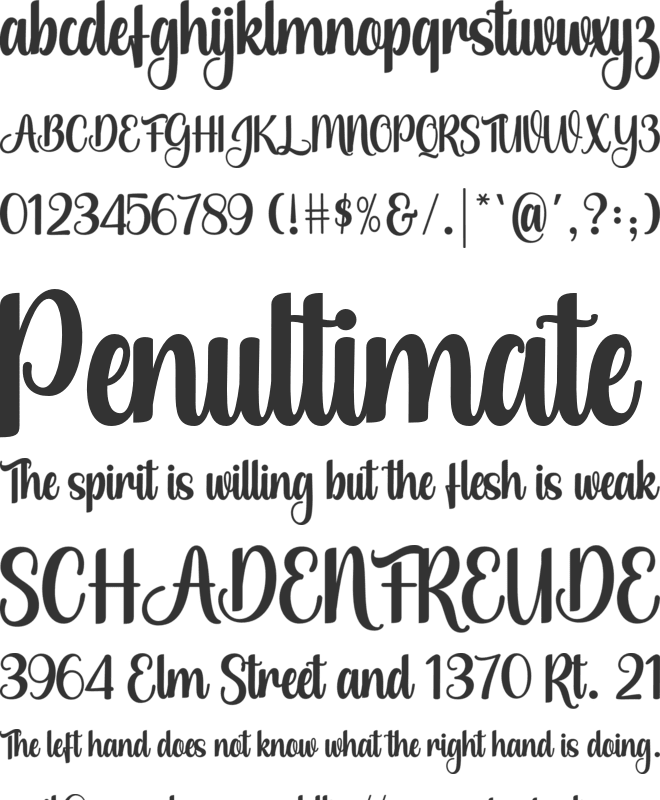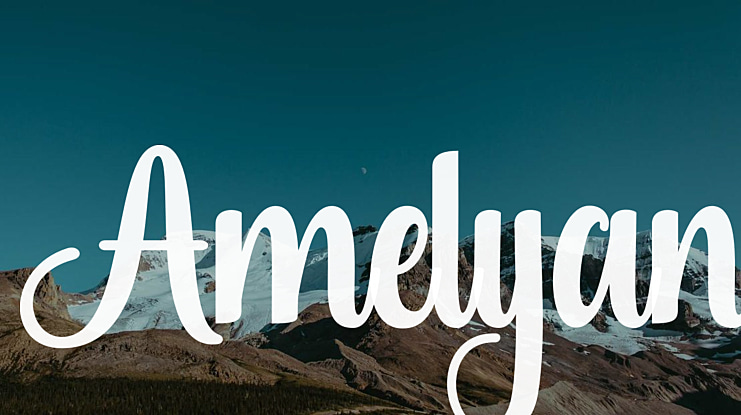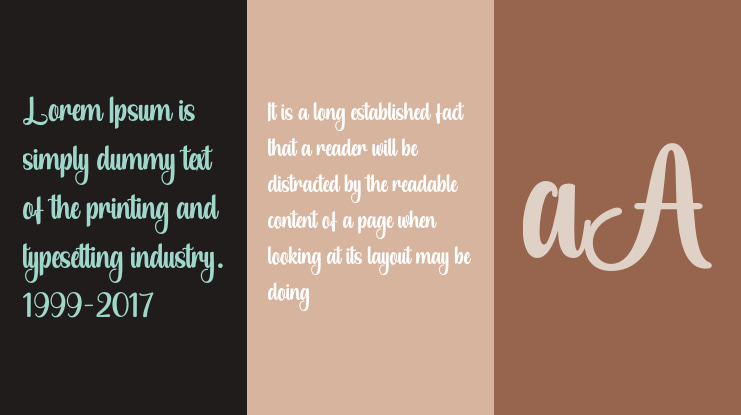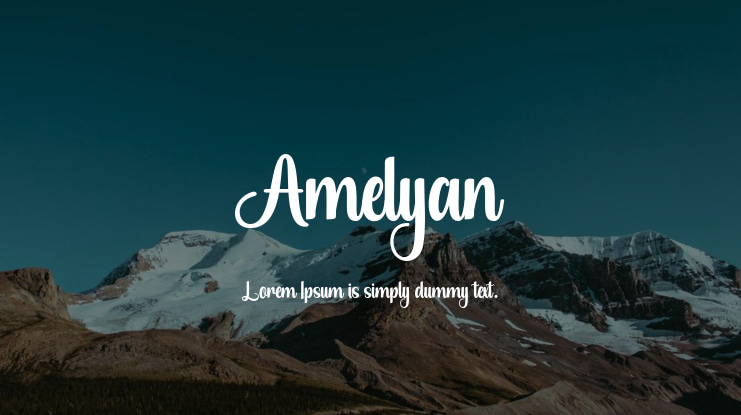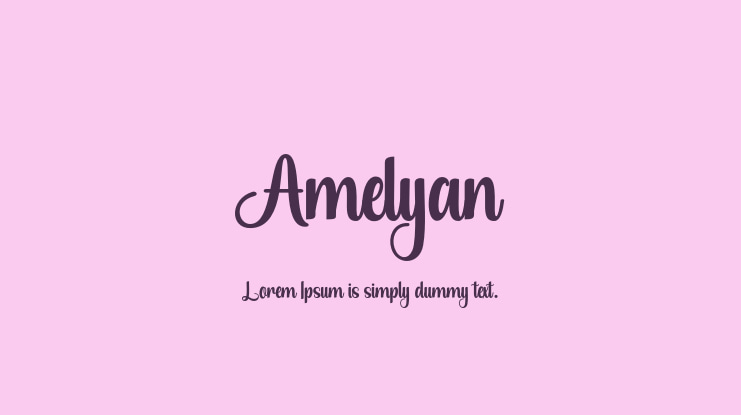
Amelyan Font
Introducing Amelyan, a delightful and approachable calligraphy font. This font exudes a sense of freshness and tidiness, making it the perfect choice for crafting wedding invitations, greeting cards, or any other design in need of a playful touch!